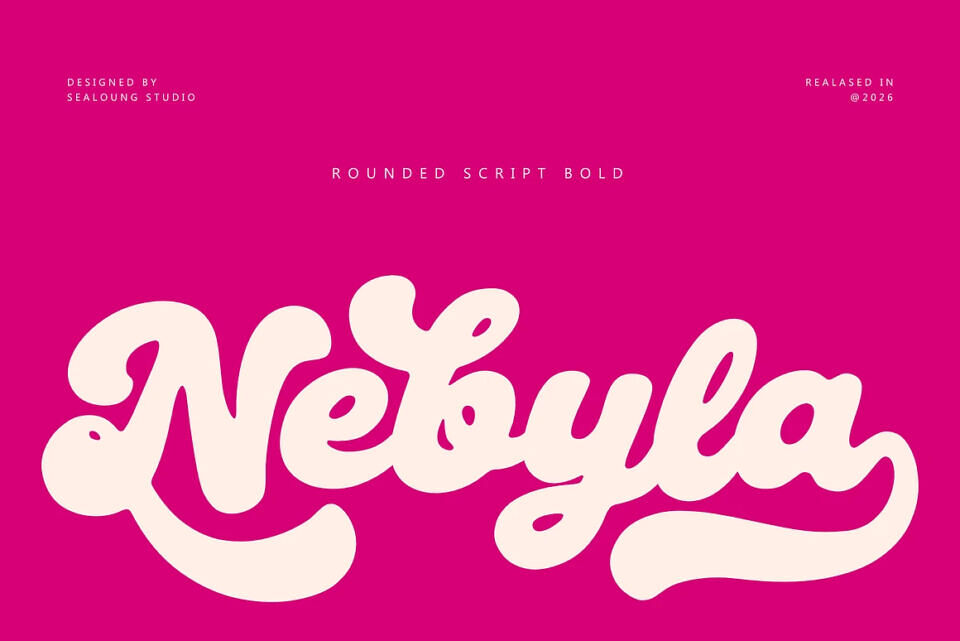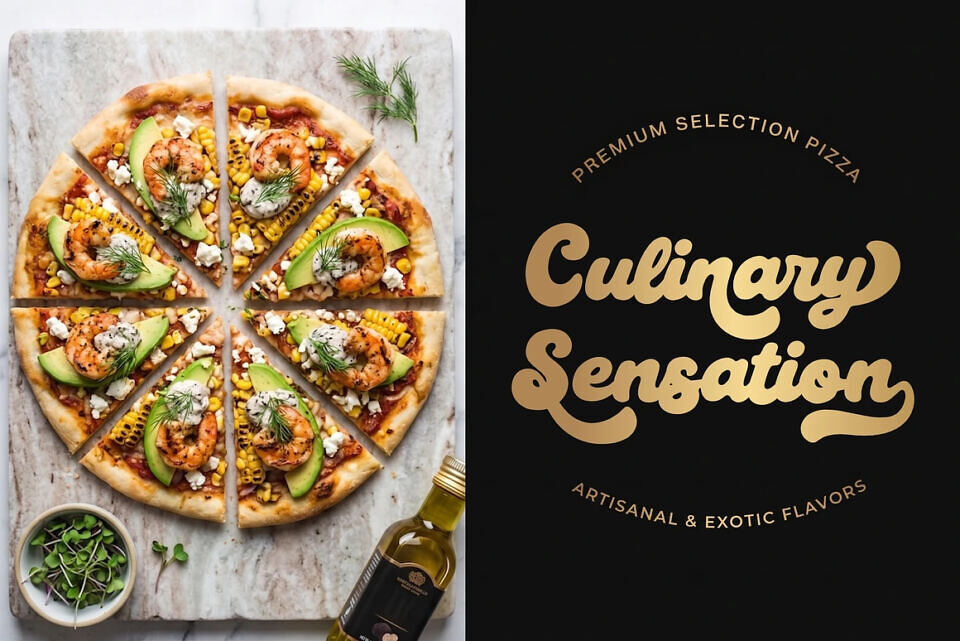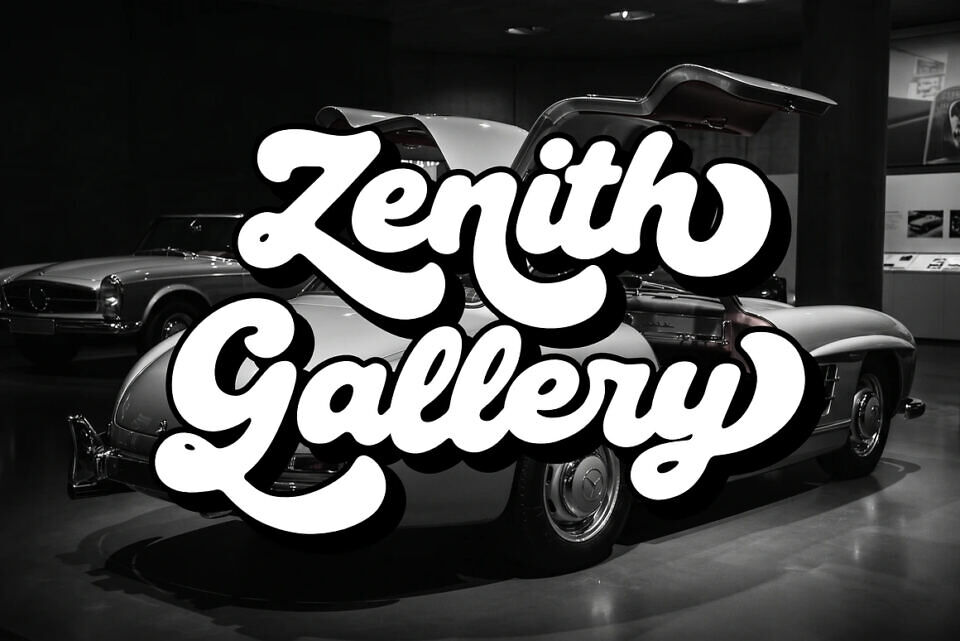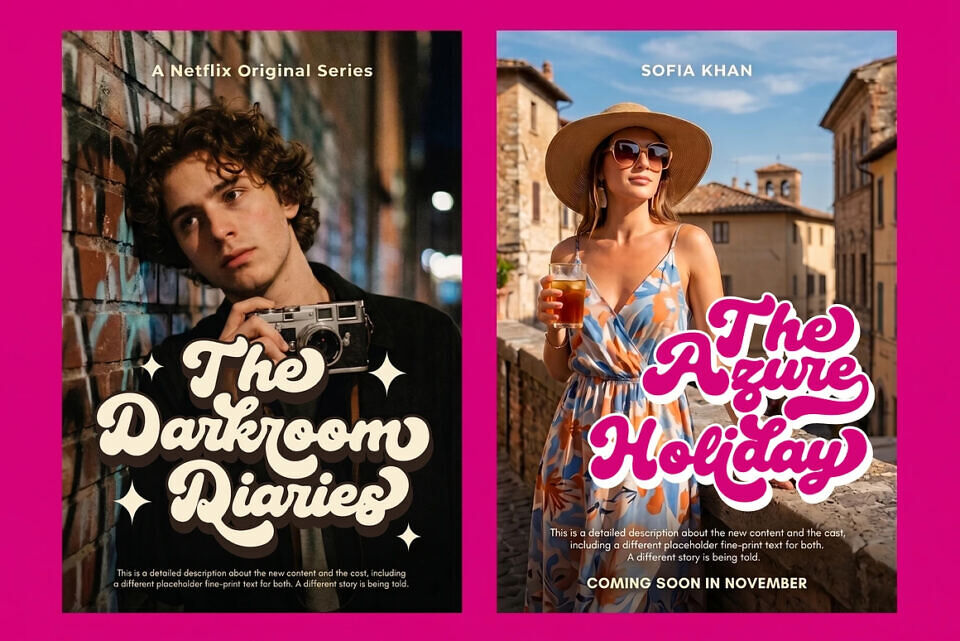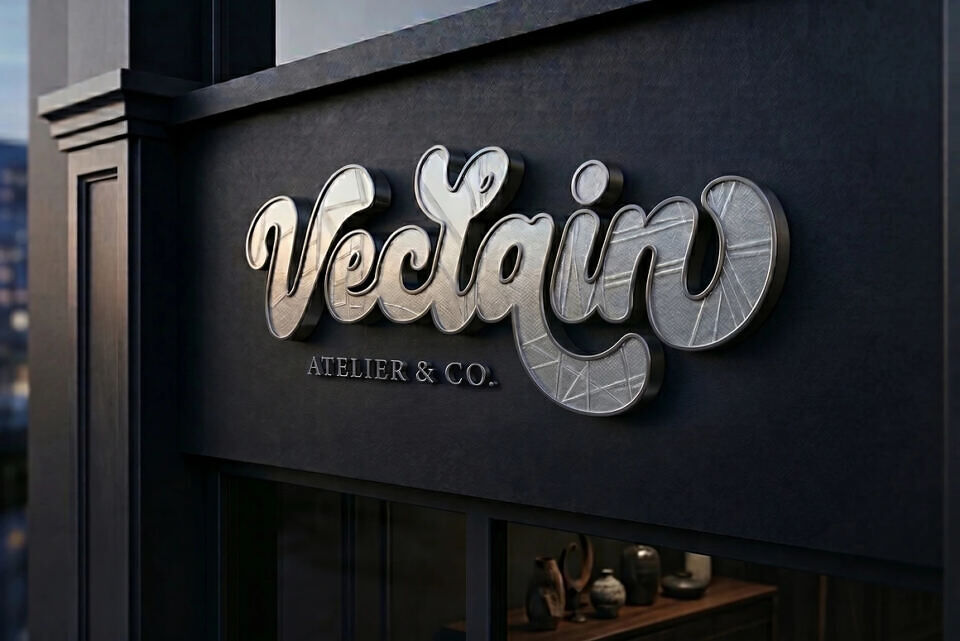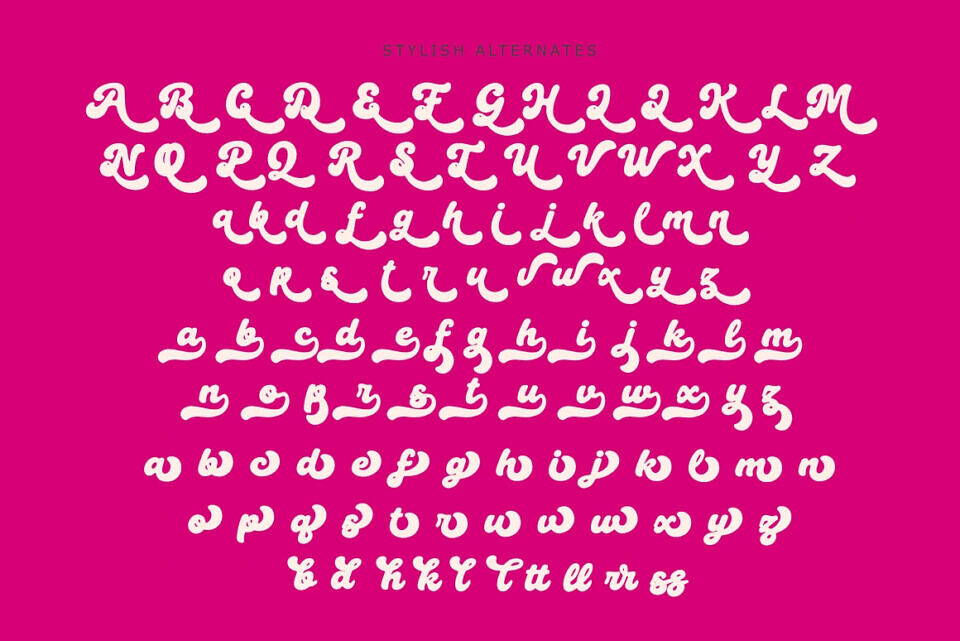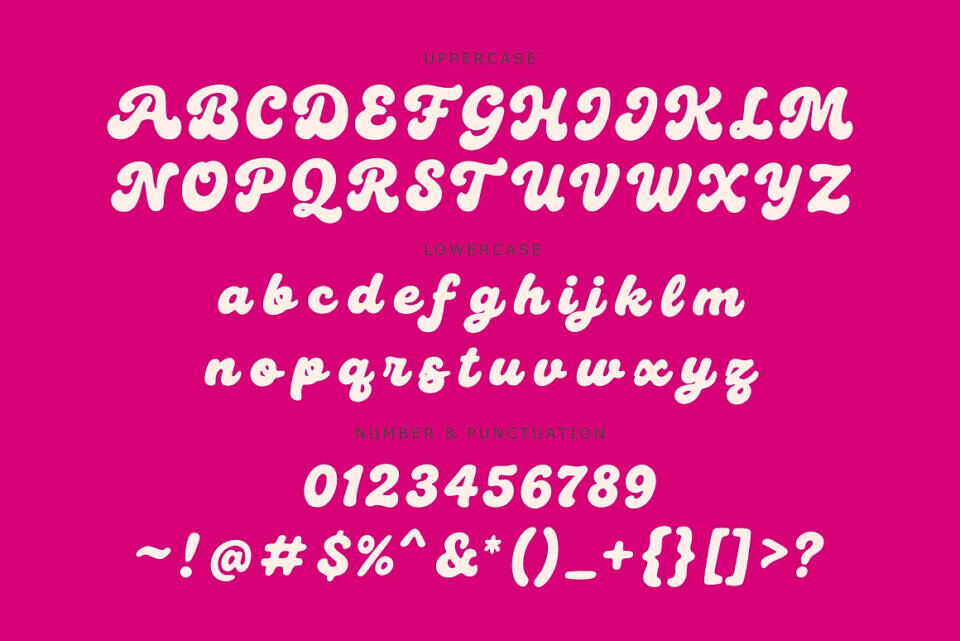
Nebyla Font
Nebyla Font is a bold rounded script typeface that blends playful softness with strong visual impact. Designed with thick, smooth curves and a confident flow, Nebyla delivers a modern retro feel that instantly catches attention while remaining friendly and highly readable.
Every letter is carefully shaped to create natural connections and seamless rhythm, making it perfect for designs that need both personality and clarity. Its chunky strokes and rounded terminals give it a warm, inviting tone, while the bold structure ensures it stands out across both digital and print media.